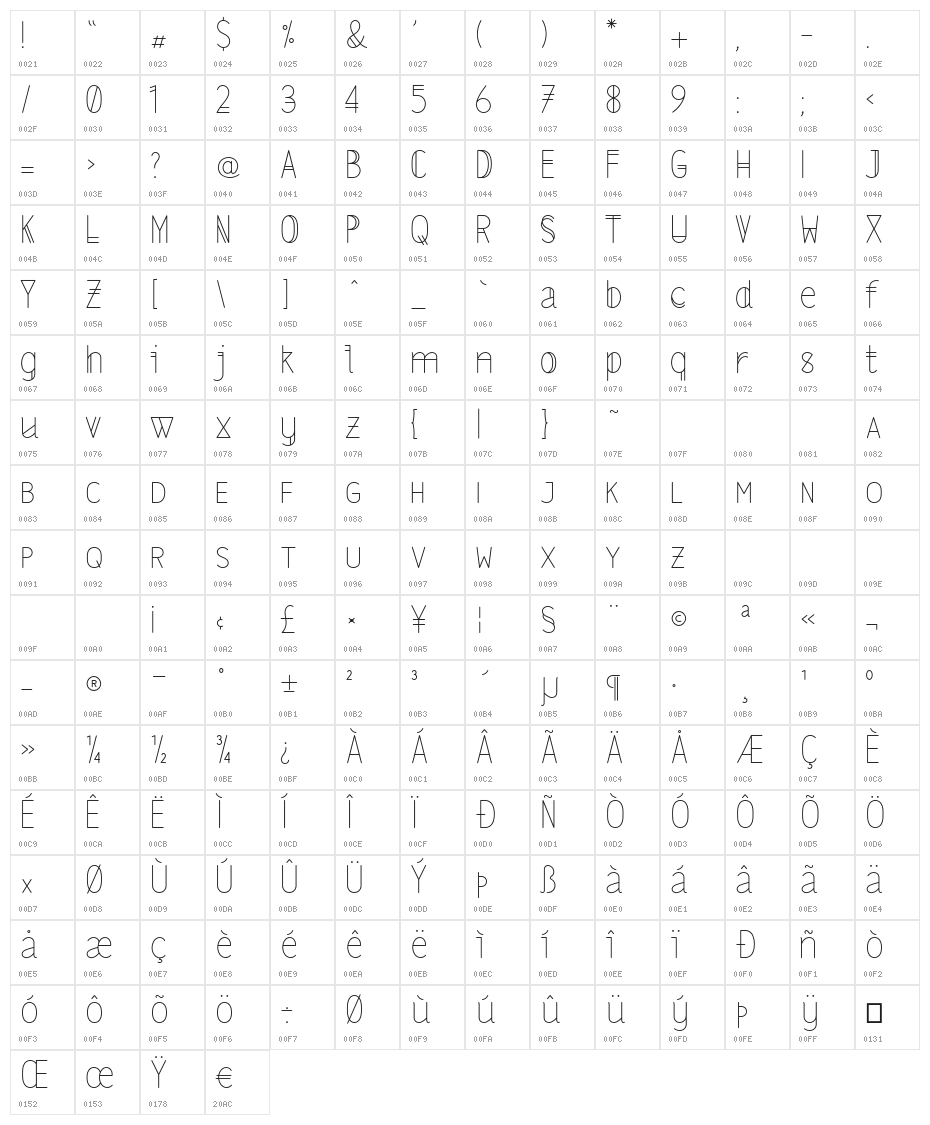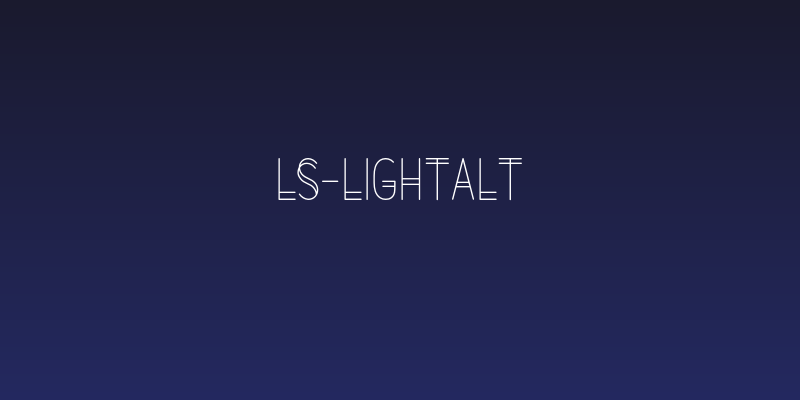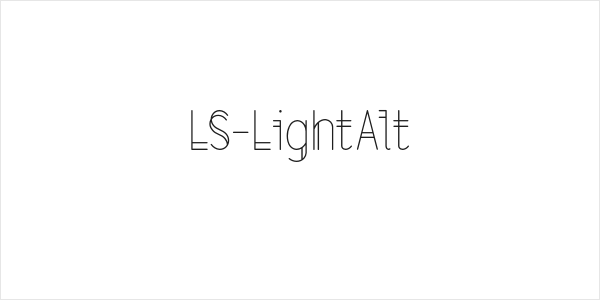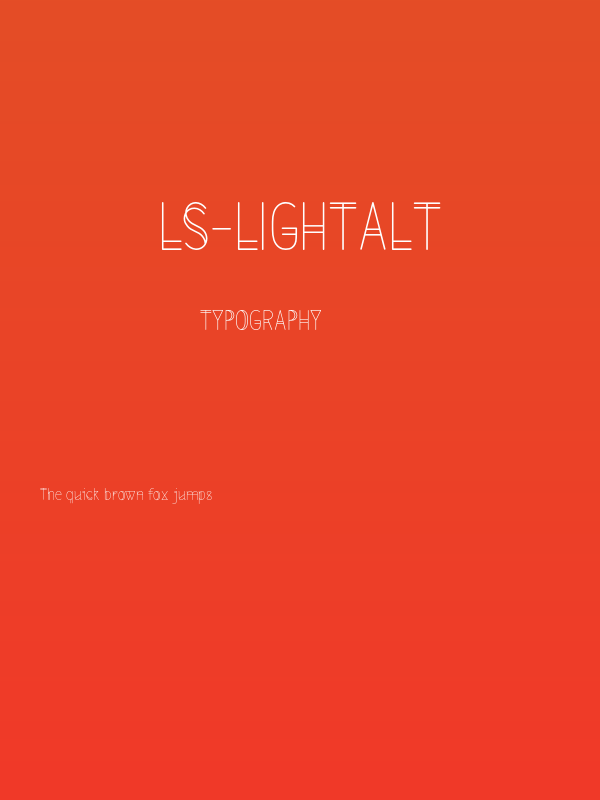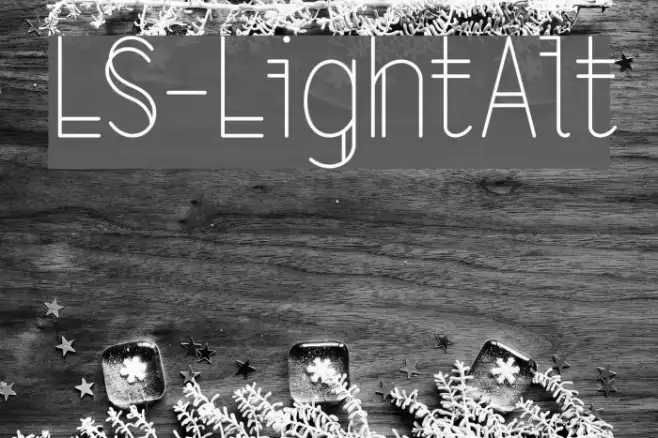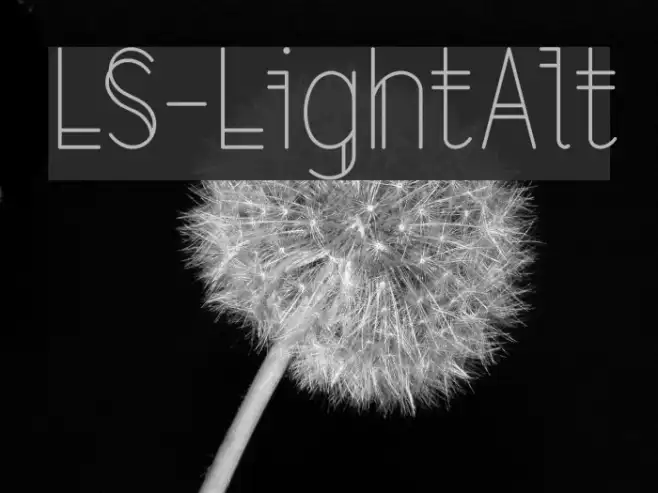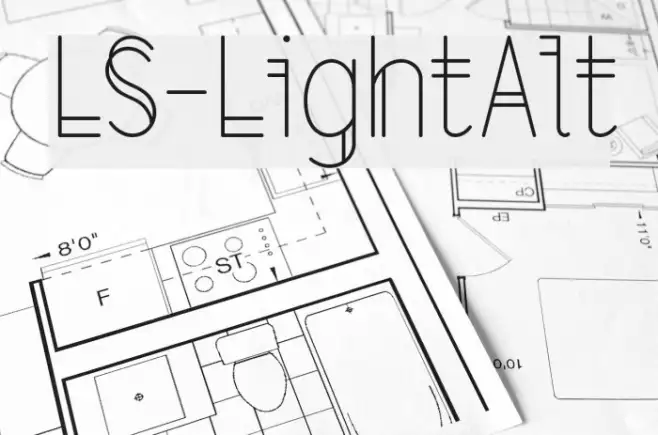
LS-LightAlt Font
LS-LightAlt Description
This font features a unique and modern design with a geometric and minimalist aesthetic. The characters are constructed with clean, straight lines and sharp angles, giving it a futuristic and stylish look. The uppercase letters are tall and narrow, while the lowercase letters maintain a consistent height, creating a harmonious balance. The numerals are equally sleek, complementing the overall design. Special characters are distinct and well-integrated, adding to the font's versatility. This font is ideal for projects that require a contemporary and sophisticated touch.